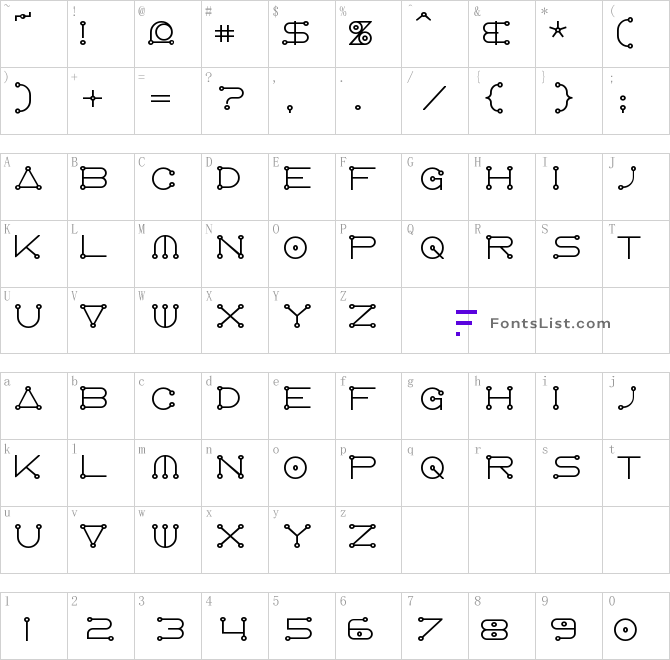
- Font Name:AngloCelestial
AngloCelestial-Bold.otf is a very beautiful artistic font, AngloCelestial-Bold.otf is widely used in the design and printing of various books and pictures,AngloCelestial-Bold.otf has a strong visual impact,AngloCelestial-Bold.otf is a commonly used font in newspapers, magazines and books, and is used in posters, e-commerce Poster design, store design, logo design, font design and other fields.AngloCelestial-Bold.